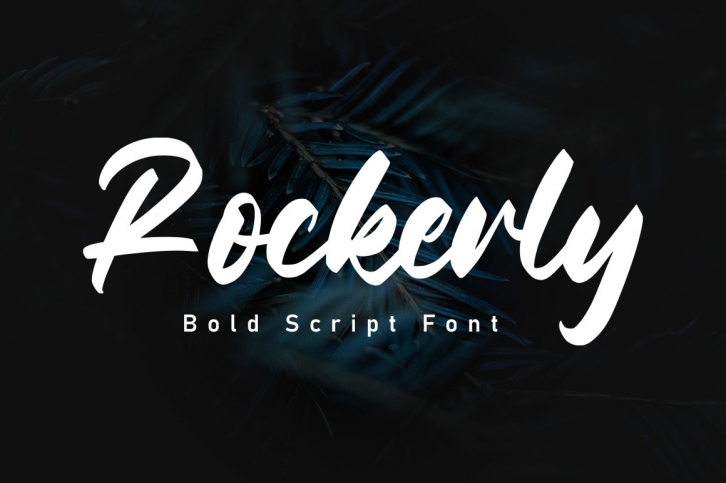
Rockerly is a gorgeous font that was realeased on January 19, 2021. The font can be used in many style contexts and design environments. Perfect for invitations, magazines, websites, logos, and more! It was designed by Fatma Studio and the file size is 15.44 MB. Thanks for checking out this font!